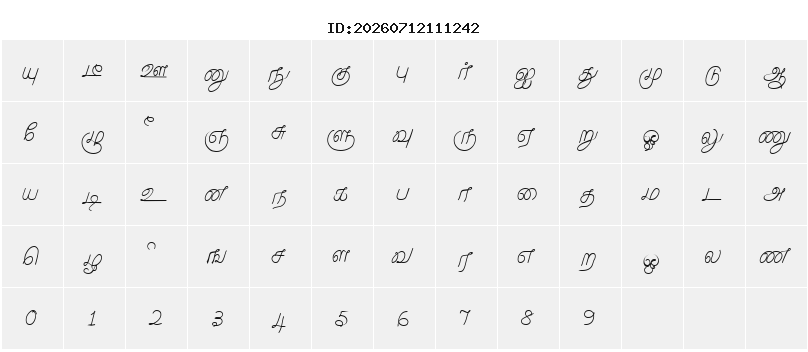
Malayamarutham Preview
• Font Name: Malayamarutham
• Font ID: Altsys Fontographer 3.5 Malayamarutham Regular
• Full Font Name: Malayamarutham Regular
• Version: Altsys Fontographer 3.5 10/29/94
• PostScript Name: Malayamarutham Regular
• Character Count: 110
About Malayamarutham.ttf
Malayamarutham.ttf is a modern, elegant sans-serif font designed for ultimate readability and visual harmony. Perfect for branding, headlines, web design, and print materials.